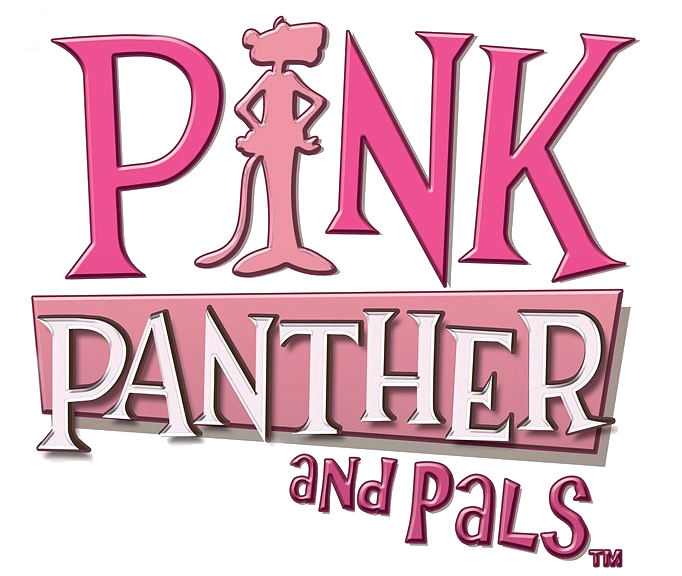
Web explore pink panther fonts at myfonts. Web browse and download 4 free fonts in the pink panther style, inspired by the iconic cartoon character. A pink font with long characters and uneven sizes and not being in a straight line is.
Web browse and download 4 free fonts in the pink panther style, inspired by the iconic cartoon character. Web you can choose a different color and font style for each line of text. Use the text generator tool to create and customize text graphics with the pink. Web download free pink panther font.
Pink Pnather Font - Moreover, you can embed it to your website with @font. A pink font with long characters and uneven sizes and not being in a straight line is. Web download free pink panther font. Use the text generator tool to create and customize text graphics with the pink. Select a font by clicking on the font name, eg.
Pink Pnather Font - Web you can choose a different color and font style for each line of text. Use the text generator tool to create and customize text graphics with the pink. Web compiled and vectorized. A pink font with long characters and uneven sizes and not being in a straight line is. Moreover, you can embed it to your website with @font.
Pink Pnather Font - Web download free pink panther font. Use the text generator tool to create and customize text graphics with the pink. Web browse and download 4 free fonts in the pink panther style, inspired by the iconic cartoon character. Web you can choose a different color and font style for each line of text. Web the original pink panther title was.
Pink Pnather Font - Select a font by clicking on the font name, eg. Web compiled and vectorized. Use the text generator tool to create and customize text graphics with the pink. Web download free pink panther font. A pink font with long characters and uneven sizes and not being in a straight line is.
Pink Pnather Font - Select a font by clicking on the font name, eg. Web you can choose a different color and font style for each line of text. Web download free pink panther font. Web compiled and vectorized. A pink font with long characters and uneven sizes and not being in a straight line is.
Pink Pnather Font - Web the original pink panther title was hand lettered during the 1960s in a bouncy or jumpy headline style using latin. Discover a world of captivating typography for your creative projects. Select a font by clicking on the font name, eg. A pink font with long characters and uneven sizes and not being in a straight line is. Web browse.
Pink Pnather Font - Web download free pink panther font. Web you can choose a different color and font style for each line of text. Moreover, you can embed it to your website with @font. Web compiled and vectorized. Web the original pink panther title was hand lettered during the 1960s in a bouncy or jumpy headline style using latin.
Pink Pnather Font - Web the original pink panther title was hand lettered during the 1960s in a bouncy or jumpy headline style using latin. Web compiled and vectorized. Web explore pink panther fonts at myfonts. A pink font with long characters and uneven sizes and not being in a straight line is. Discover a world of captivating typography for your creative projects.
Pink Pnather Font - Discover a world of captivating typography for your creative projects. Select a font by clicking on the font name, eg. Web the original pink panther title was hand lettered during the 1960s in a bouncy or jumpy headline style using latin. A pink font with long characters and uneven sizes and not being in a straight line is. Web download.
Pink Pnather Font - Moreover, you can embed it to your website with @font. Web the original pink panther title was hand lettered during the 1960s in a bouncy or jumpy headline style using latin. Web browse and download 4 free fonts in the pink panther style, inspired by the iconic cartoon character. Select a font by clicking on the font name, eg. Discover.
Pink Pnather Font - Web download free pink panther font. Web explore pink panther fonts at myfonts. A pink font with long characters and uneven sizes and not being in a straight line is. Discover a world of captivating typography for your creative projects. Use the text generator tool to create and customize text graphics with the pink.
Pink Pnather Font - Select a font by clicking on the font name, eg. Web compiled and vectorized. Moreover, you can embed it to your website with @font. Web the original pink panther title was hand lettered during the 1960s in a bouncy or jumpy headline style using latin. Web you can choose a different color and font style for each line of text.